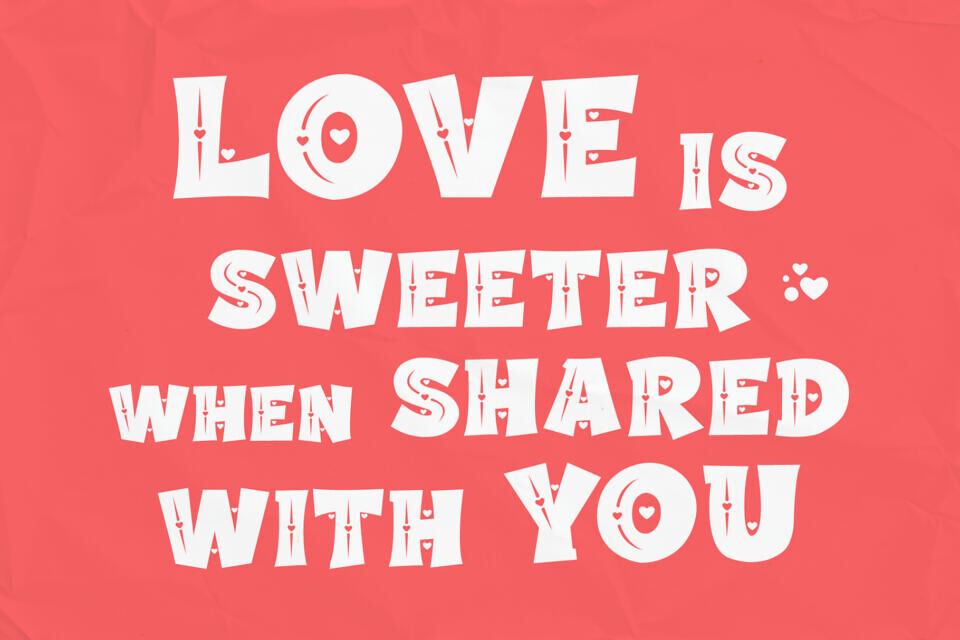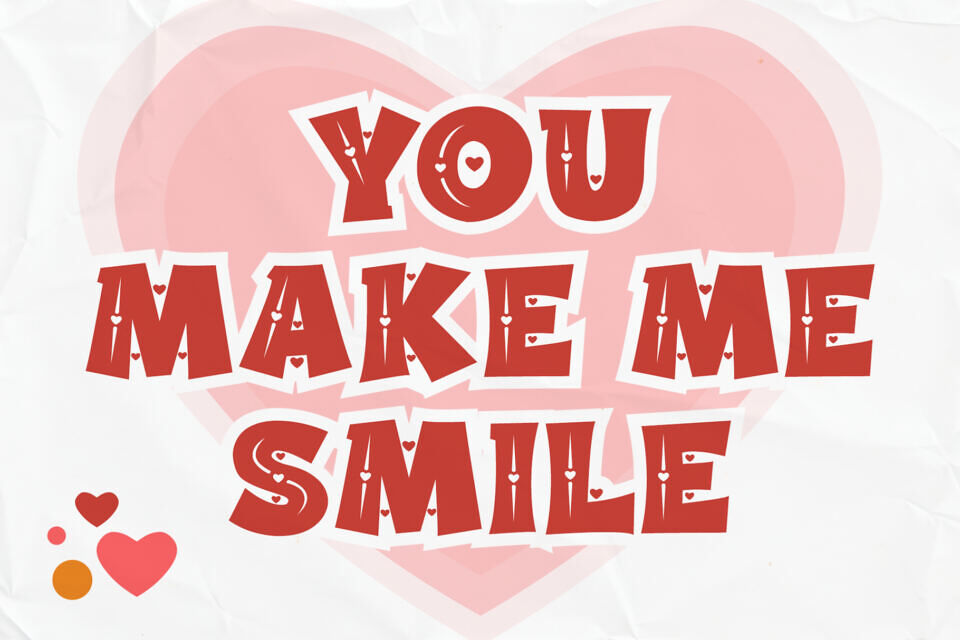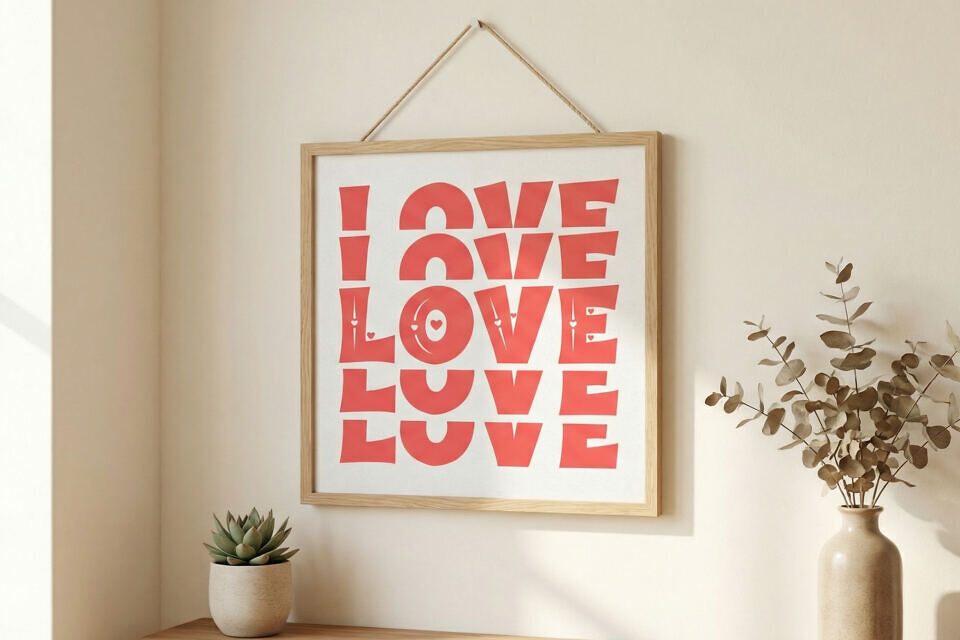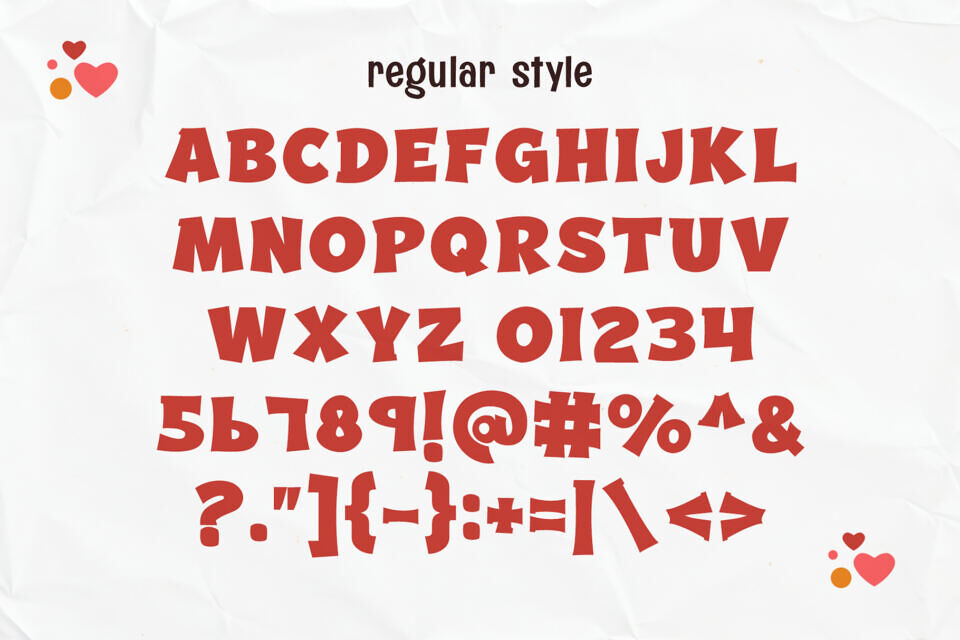
Experience the playful charm of Zippy Love, a Valentine-inspired font that exudes joy and love. With two styles, Regular and Decorative, designers can switch between bold lettering and heart-filled characters.
Perfect for various applications, Zippy Love is highly readable, versatile, and ideal for digital designs, signage, and more, bringing warmth and romance to any project. Its unique blend of styles makes it a great tool for creators seeking emotional depth and a personal touch.